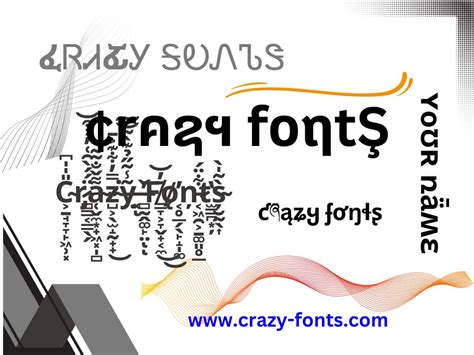
Crazy Fonts Generator. The reason it makes text glitchy is. You could use it to generate a fancy agario name (yep, weird text in agario is probably generated.
The reason it makes text glitchy is. The weird hacky text is known as zalgo text, but sometimes people call it crazy text, and it's probably what most people are using this translator for. Just type any text in the input box and it will generate hundreds of variations of text fonts on. Copy and paste 299+ cool fonts to upgrade your whatsapp or facebook status! Web useful for generating fancy instagram bio text fonts to make your ig profile more individuality and popularity. You could use it to generate a fancy agario name (yep, weird text in agario is probably generated. Web though they are useful for generating crazy text which we can copy and paste into the comments of a funny cat video on youtube, they're also very useful when we want to augment the way a letter is pronounced. Web use our weird text generator to design fancy text for your social media accounts. Web after generating your fancy text symbols, you can copy and paste the fonts to most websites and text processors.